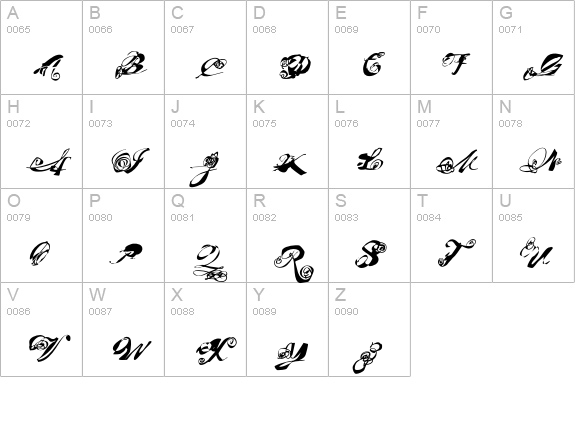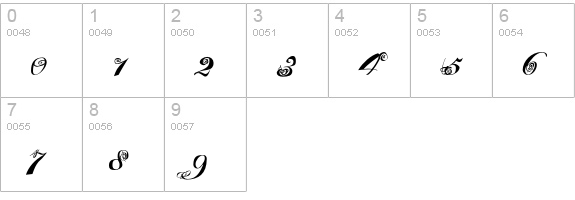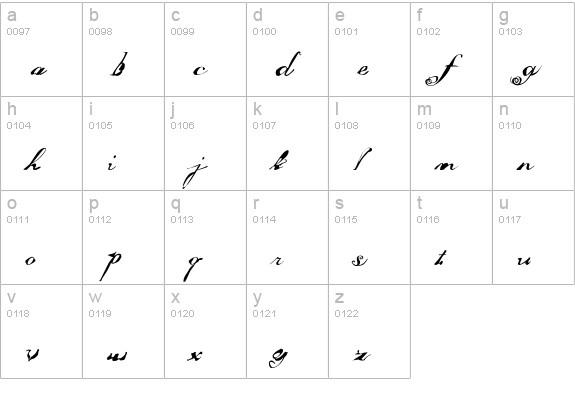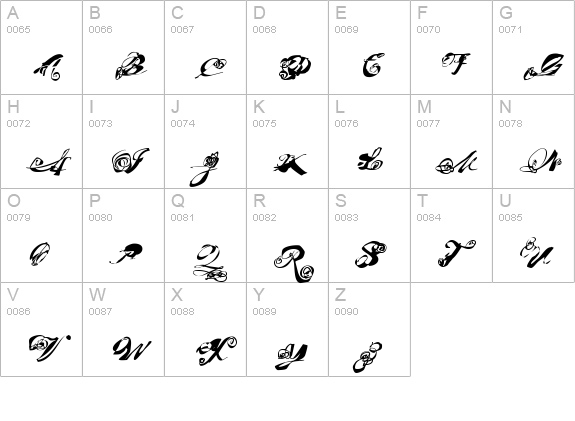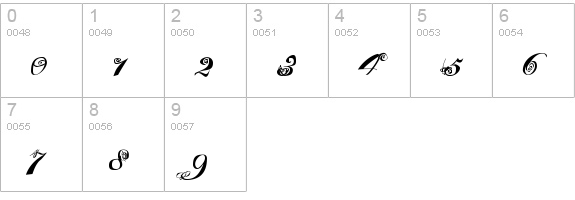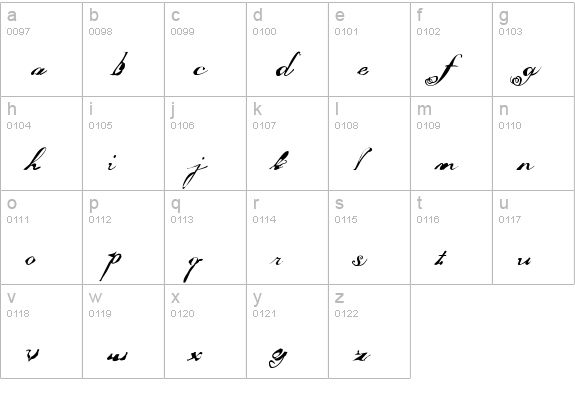
Masterpiece-Allegro Font Details
Introducing Masterpiece-Allegro font, a stunning typeface that effortlessly combines elegance with a touch of modernity. This font exudes a timeless charm and is bound to capture the attention of any reader. With its clean lines and graceful curves, Masterpiece-Allegro is the perfect choice for a wide range of design projects. Whether you're creating invitations, logos, websites, or any other visual masterpiece, this font will elevate your work to new heights. What sets Masterpiece-Allegro font apart is not just its exceptional aesthetics, but also its versatility. It seamlessly adapts to various design styles, making it suitable for both formal and informal contexts. Its legibility ensures that your message is conveyed with clarity and impact, while its artistic flair adds a touch of sophistication. But the best part? Masterpiece-Allegro font is freely available to download at FontsMarket.com. This means that you can enhance your designs with this exquisite typeface without any cost. It's a remarkable opportunity to access a professional-grade font that embodies the essence of creativity and craftsmanship. So why wait? Elevate your designs and capture the attention of your audience with Masterpiece-Allegro font. Download it for free at FontsMarket.com and embark on a journey of visual excellence.